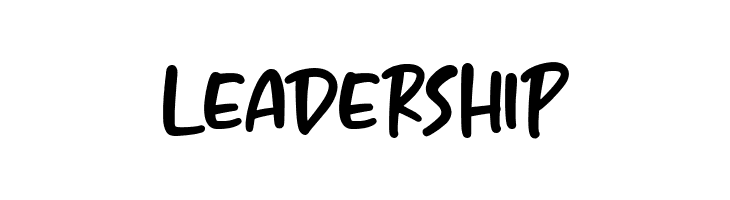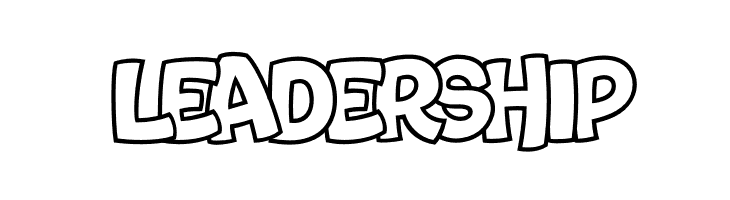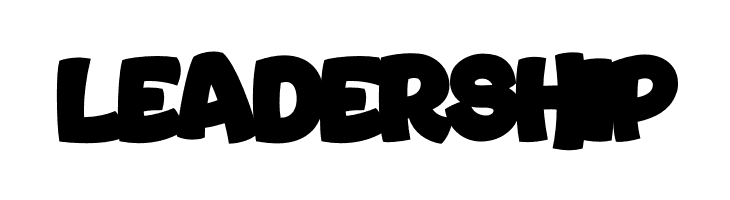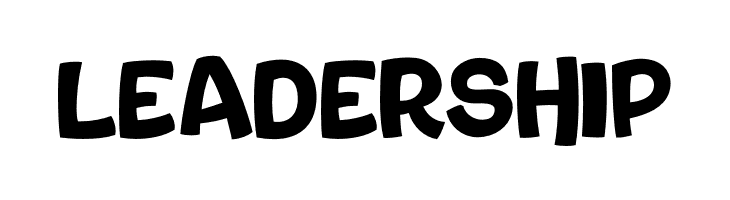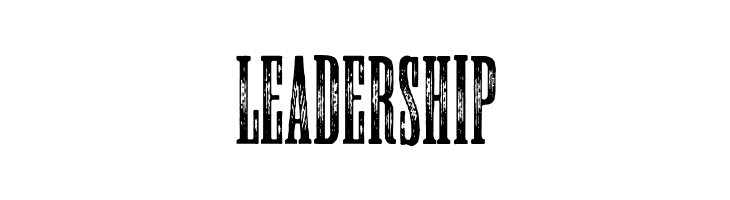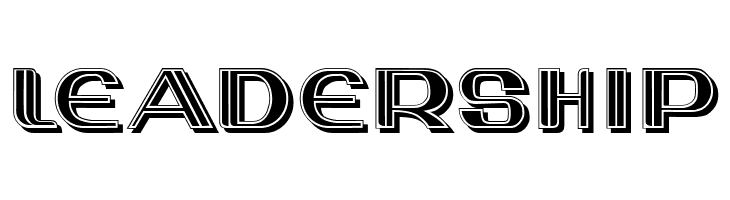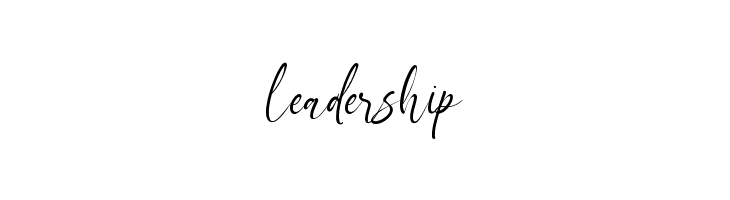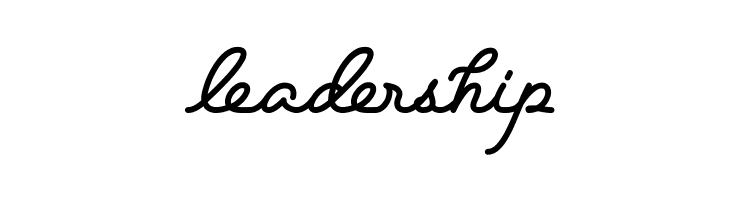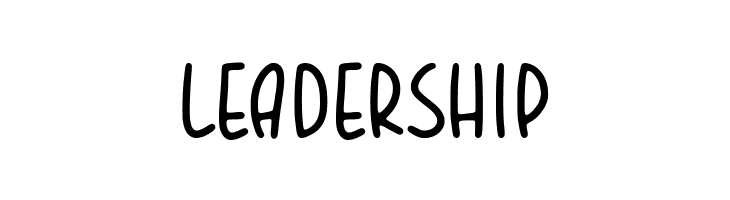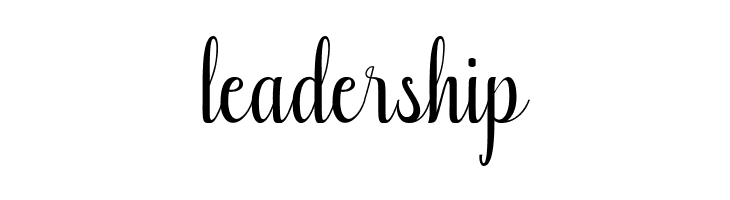
A bold, decorative font with circular cutout patterns for a playful, artistic look.
A bold, geometric font with a strong, condensed design.
A bold, textured script font with a vintage, hand-painted style.
A dynamic and flowing script font with elegant cursive letterforms.
A cursive, handwritten font with elegant loops and a playful style.
A bold, geometric font with a futuristic, industrial style.
An elegant and flowing script font with sophisticated, cursive letterforms.
A modern, elegant font with thin strokes and rounded terminals.
A lively and playful script font with a hand-drawn aesthetic.
A playful and energetic script font with flowing cursive letters.
A playful, handwritten font with a lively and bouncy style.
A bold, playful font with rounded, exaggerated shapes for a lively appearance.
A bold, outlined font with a playful, bouncy style and a collegiate vibe.
A lively, flowing script font with interconnected, cursive letters.
A playful, hand-drawn font with bold, rounded outlines and a cartoon-like style.
A playful, bouncy font with bold, rounded letters and a whimsical style.
An elegant, flowing script font with a handwritten appearance.
A lively and elegant script font with flowing, cursive letterforms.
A bold, playful handwritten font with consistent strokes and informal style.
A playful, casual handwritten font with smooth, rounded strokes.
A playful, casual handwritten font with smooth, rounded edges and consistent line weight.
A modern, geometric font with minimalist curves and straight lines.
A bold, distressed font with a vintage, rustic aesthetic.
A bold, hand-painted font with an expressive and dynamic style.
A bold, elegant serif font with high contrast and pronounced serifs.
A dynamic and elegant script font with a flowing, handwritten style.
A playful and expressive handwritten font with fluid, dynamic strokes.
A bold, slanted font with a playful and dynamic style.
A bold, geometric font with a three-dimensional layered outline effect.
A bold, textured font with a vintage, distressed style.
A bold, textured font with a vintage, handcrafted appearance.
A stylish and elegant script font with flowing, interconnected letterforms.
A dynamic and fluid script font with elegant, flowing letterforms.
A stylish, flowing script font with a natural handwriting feel.
Art Nouveau-inspired ornamental designs with floral and geometric motifs.